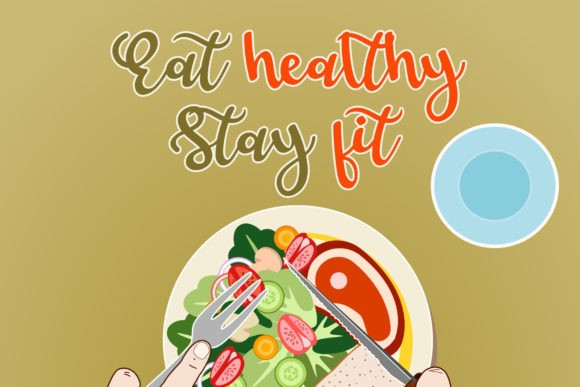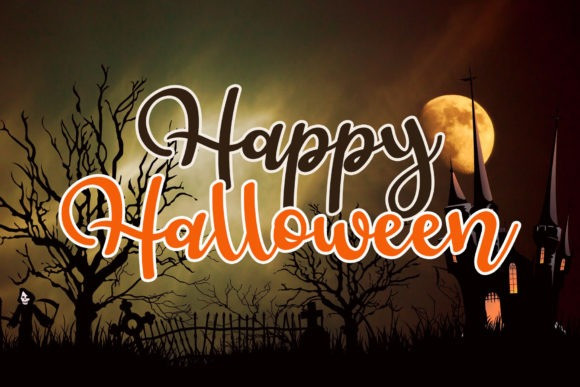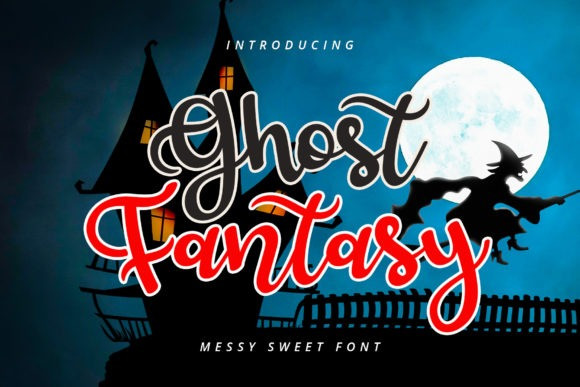
Ghost Fantasy Font
Ghost Fantasy Font is a relaxed, flowing and cute handwritten font. It has an unique style that will make your designs look both fresh and timeless.